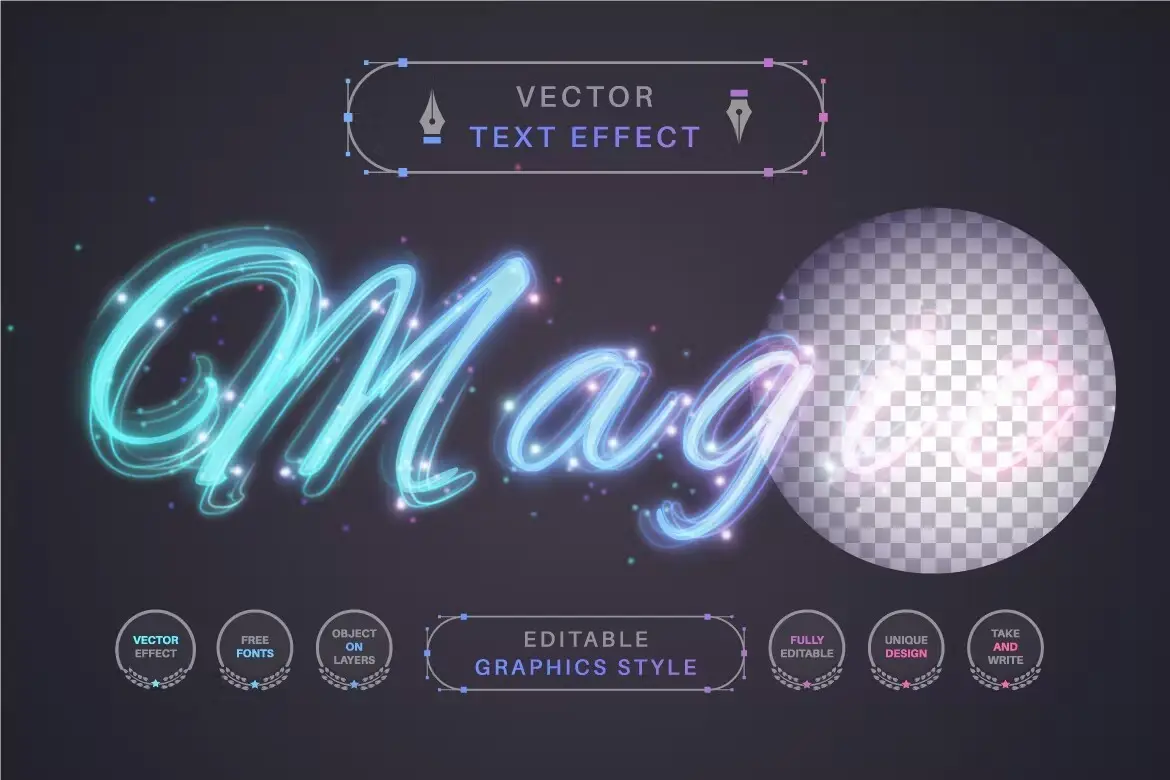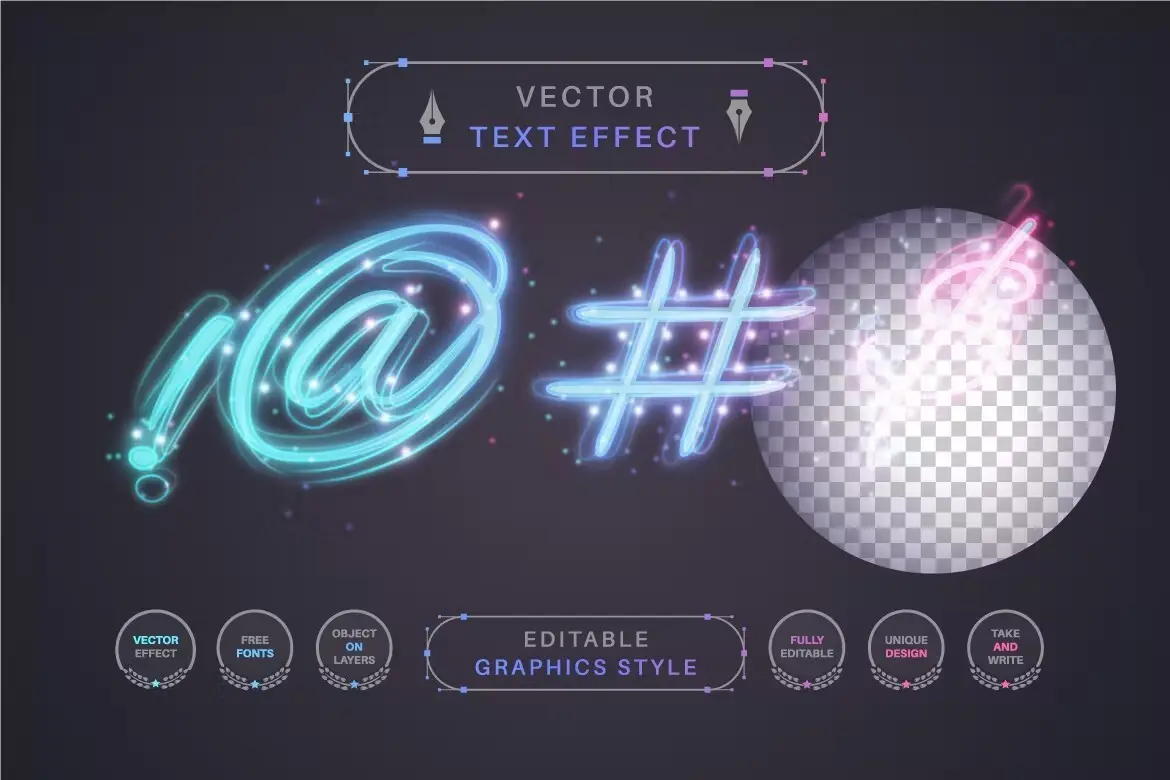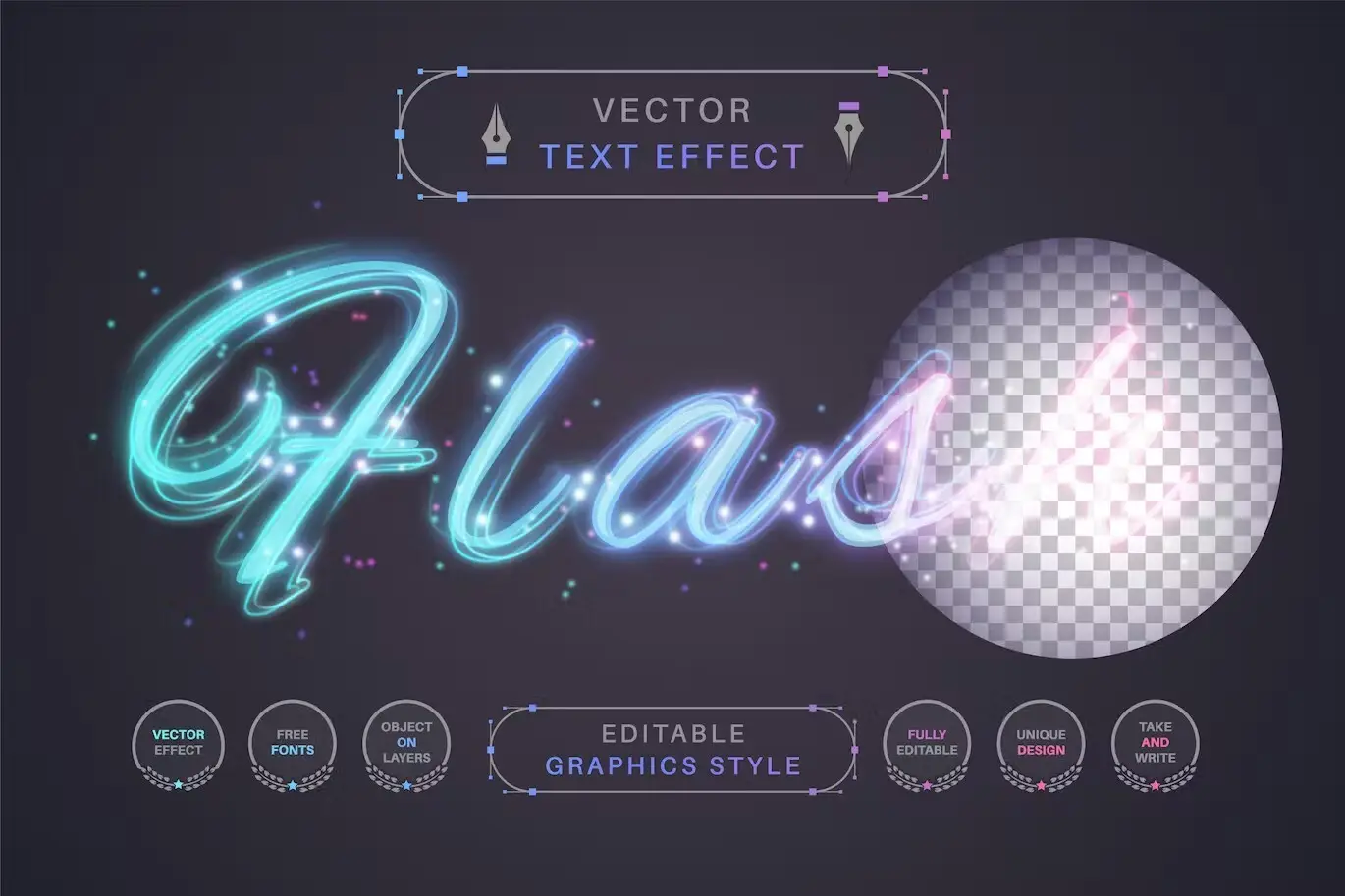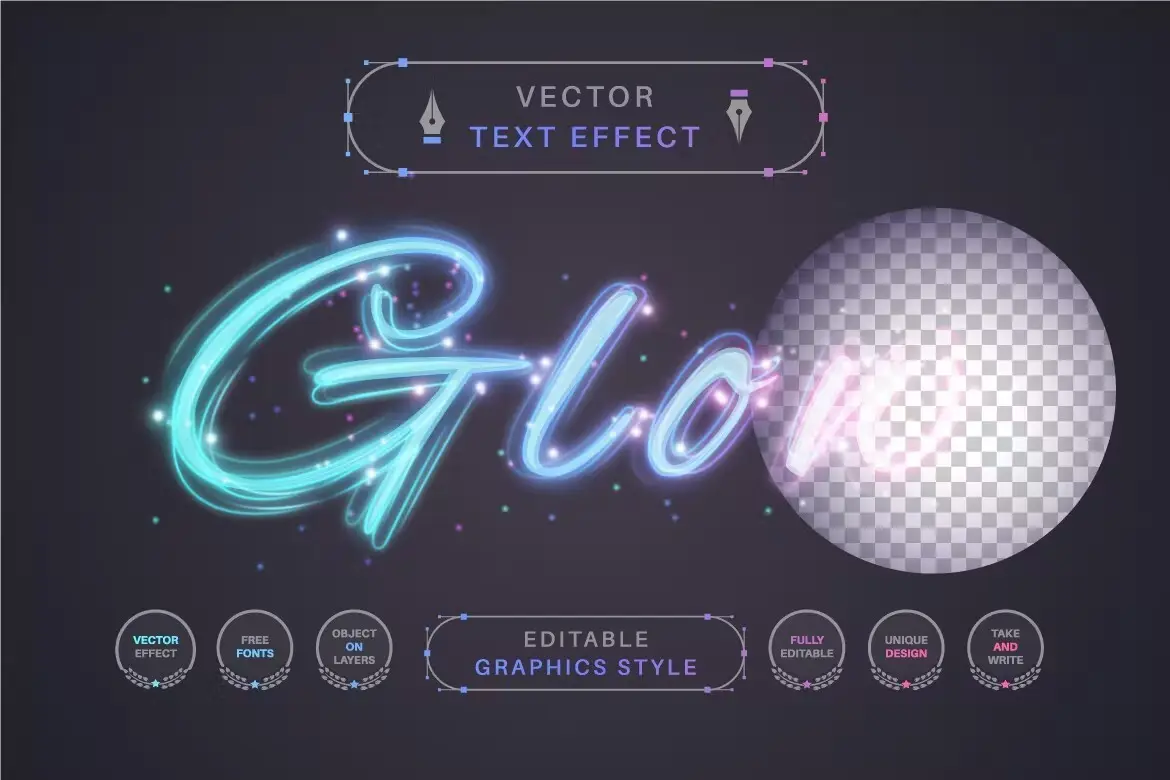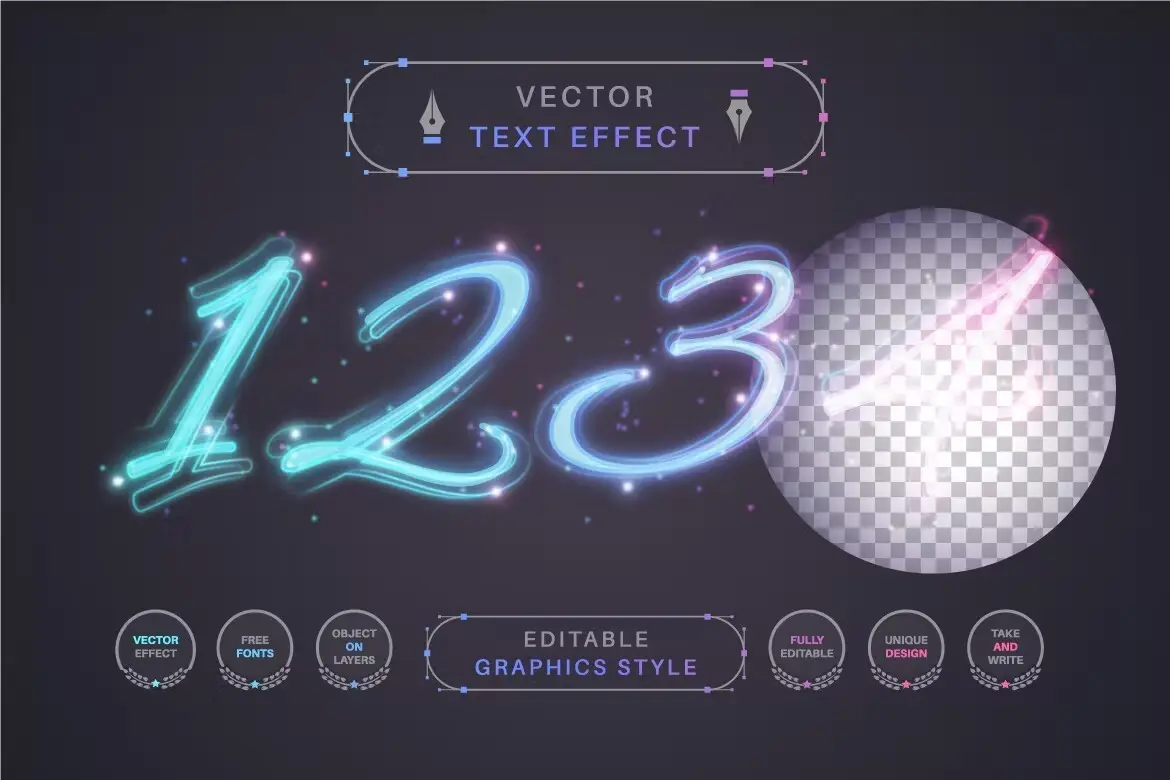
Flash Stroke – Editable Text Effect, Font Style
Introducing the Flash Stroke text effect, a stunning way to enhance your creative projects! This editable text effect allows you to easily apply a vibrant and dynamic glow to any word or phrase, making it perfect for designs that need a unique and eye-catching touch.
The Flash Stroke effect is designed for artists, designers, and anyone looking to add a professional flair to their text. Whether you’re working on promotional materials, social media graphics, or personal projects, this text effect will help your words stand out.
- ✅ Creative Flexibility → Perfect for a variety of applications, from club flyers to digital art and beyond.
The Flash Stroke text effect is not just another design tool; it’s a gateway to unleashing your creativity. Trusted by designers worldwide, this effect offers a professional touch that can elevate any project. With its easy-to-use format and stunning results, you can transform ordinary text into extraordinary visuals.